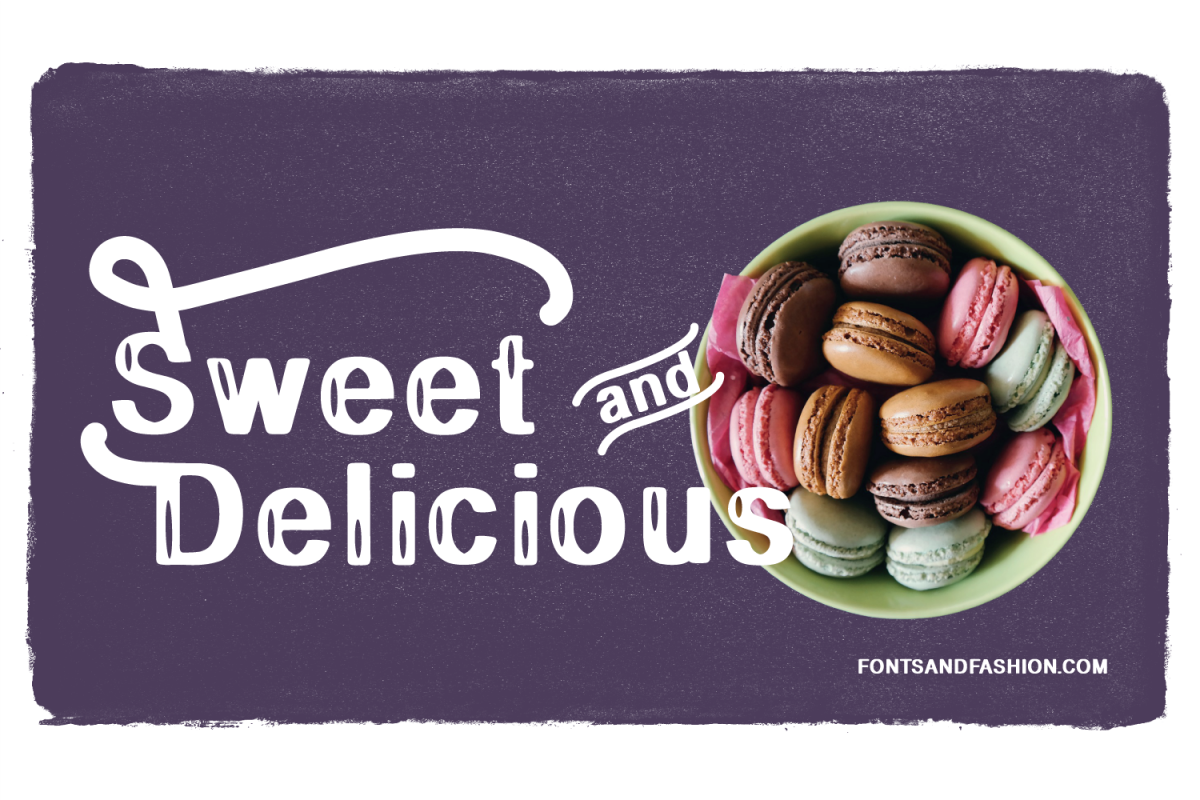
CANDY DROP
CANDYDROP-Regular
The CANDY family fonts, geometric sans serif style, can be used to create any type of project.
Just use imagination and any creation will become more 'sweet and sparkling ...
Try creating print materials and web design, greeting cards, or even a brand identity ...
or logos showcases or store signatures, maybe sweets? ...
Feel free to play with all the models and shapes that will bring you to your next successful project.
The family is made up of 5 styles (candy pops, candy drops, candy lines, candy full, candy side dishes)
each style is made up of 307 glyphs, with 68 special letters that will help in the realization of your projects.
Is a family of 5 different fonts.
CANDY DROP